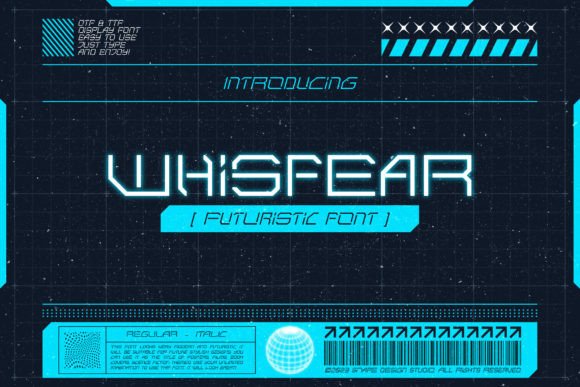
Step into the future of typography with Whisfear, the groundbreaking sans serif font family that shatters boundaries and ignites imagination. This visionary collection of fonts transports you to a realm beyond the ordinary, where cutting-edge aesthetics collide with the limitless possibilities of digital art.
Crafted meticulously by master type designers, Whisfear empowers you to unleash creativity like never before. Its sleek, dynamic, and meticulously designed characters dance on the page, effortlessly blending innovation and artistry. Whether you seek to craft captivating science posters, elevate your tech branding, or embark on futuristic design projects, Whisfear holds the key to unlock your creative potential.
Beyond its striking appearance, Whisfear boasts incredible versatility. Customize with ease to match your unique vision, tailoring each letterform to perfectly capture your message. The possibilities are endless, allowing you to create designs that resonate with your audience on a profound level.
Embrace Whisfear, the font that empowers you to push the boundaries of design and reshape the future of visual communication. Experience the thrill of innovation and the allure of aesthetics as you craft masterpieces that captivate and inspire.